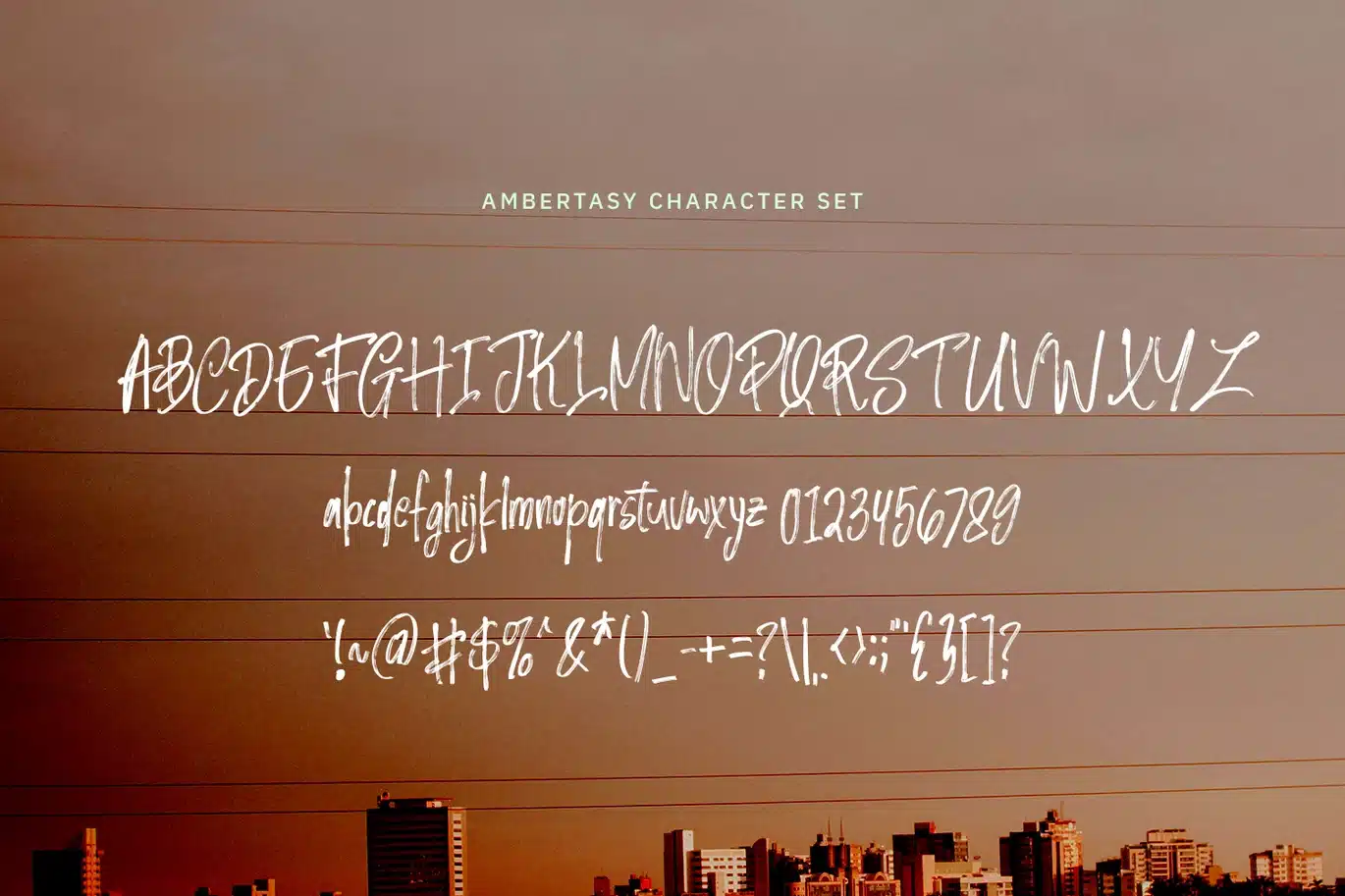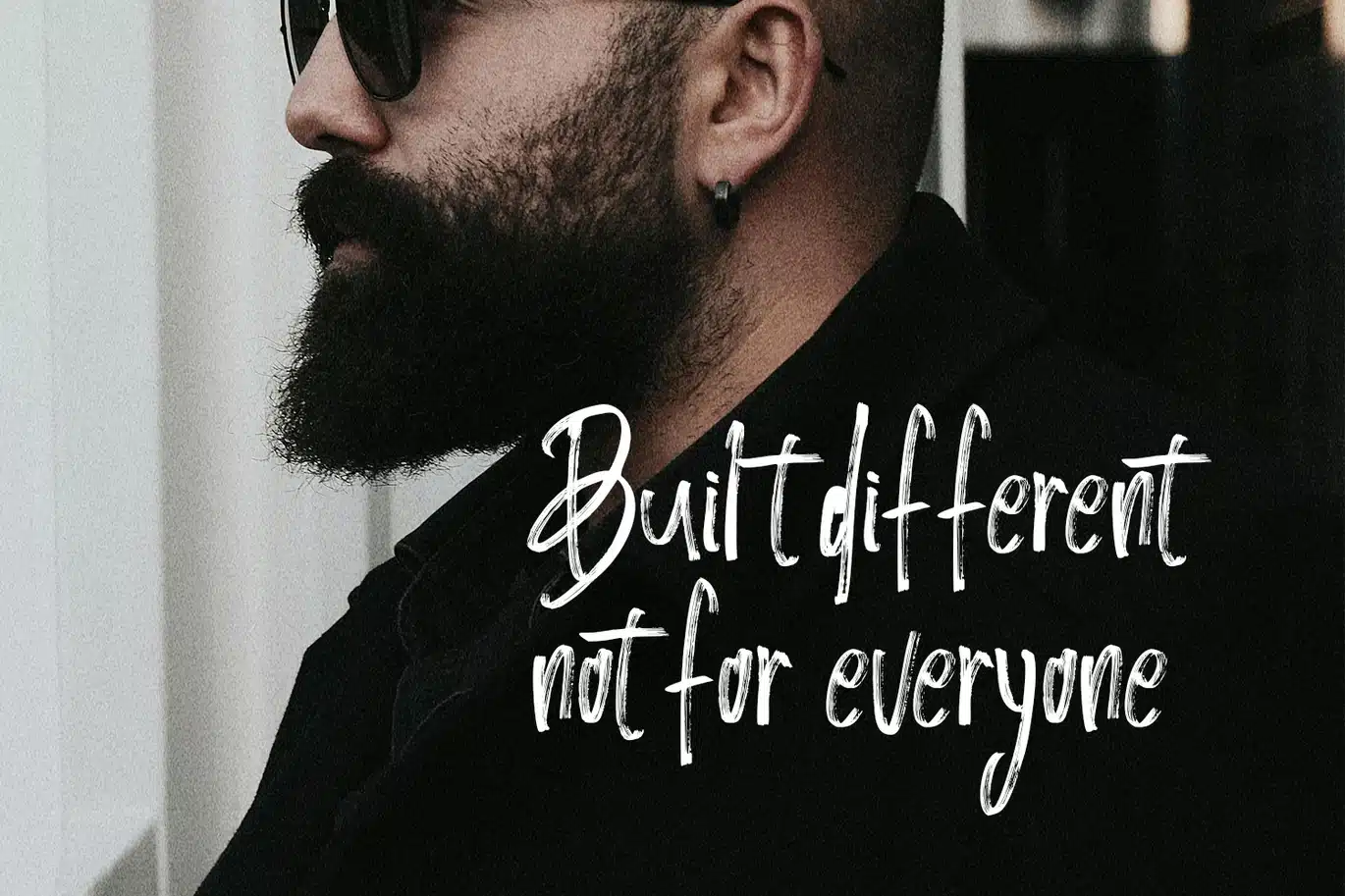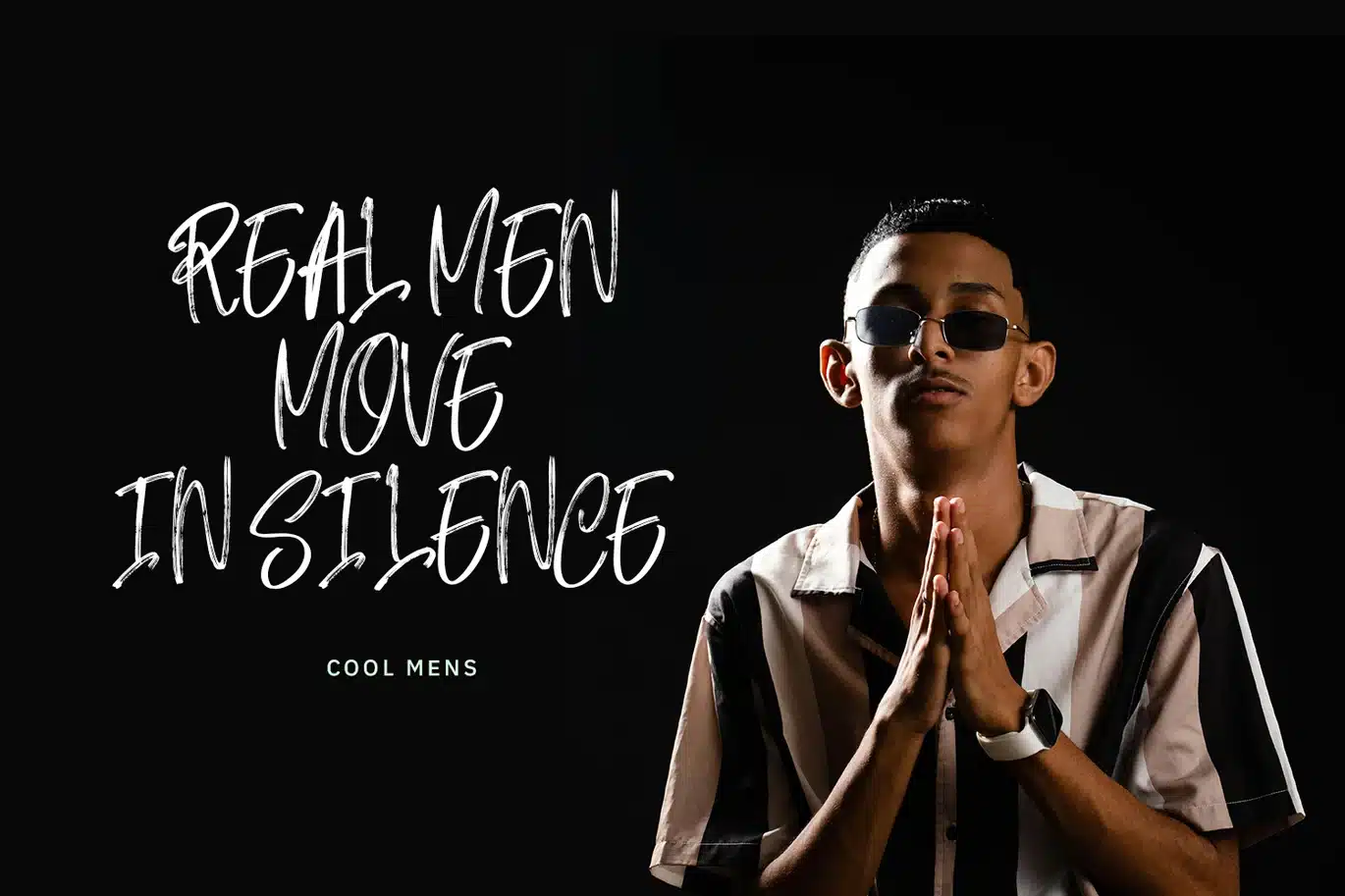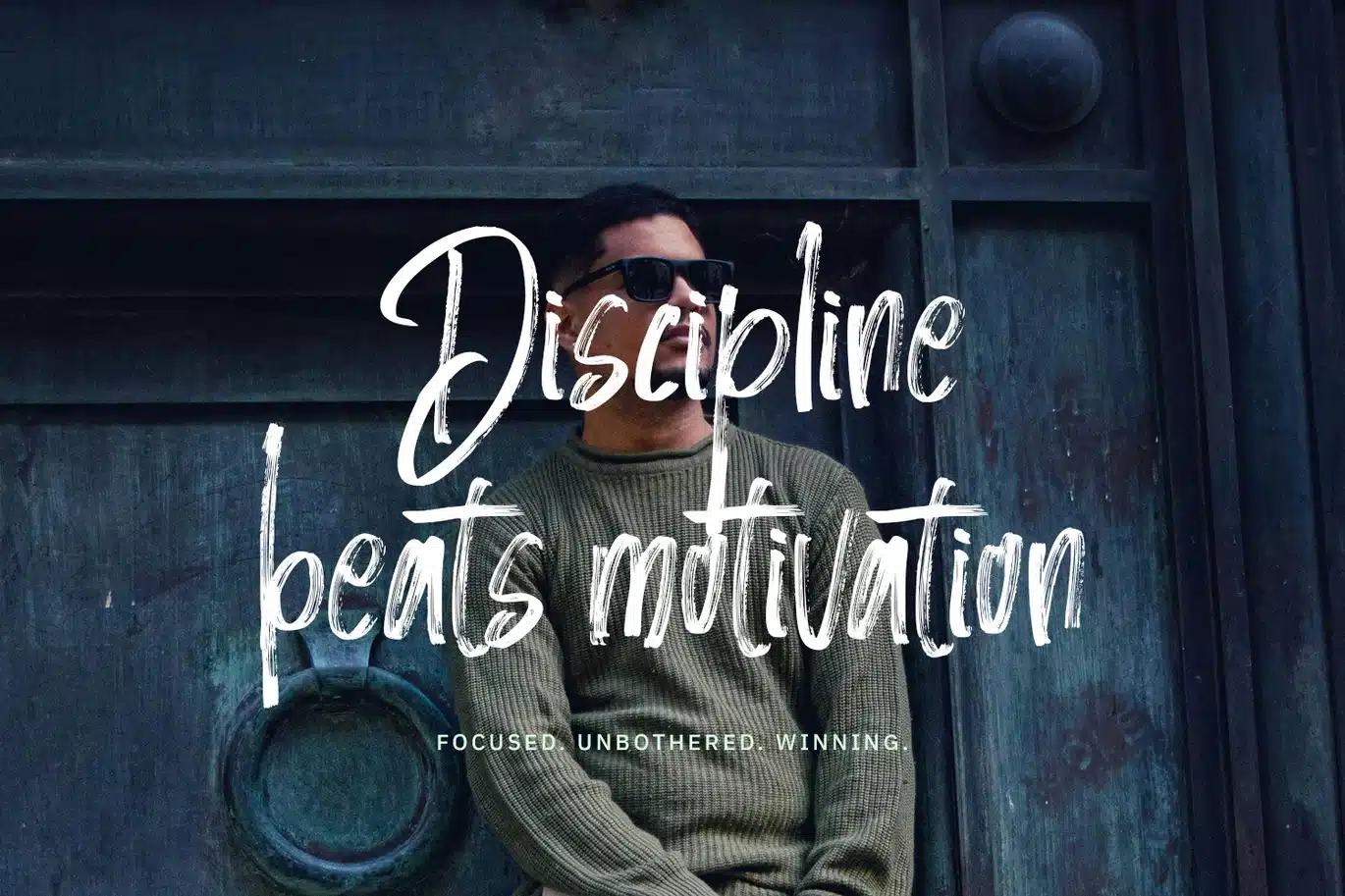
Ambertasy – The Handmade Brush Font
Ambertasy - The Handmade Brush Font
Ambertasy is a handmade brush font crafted with expressive strokes and authentic hand-painted character. Inspired by natural brush movement, this font blends organic texture with a smooth and confident flow. Its slightly rough edges and dynamic forms create a strong artistic personality while keeping excellent readability.
Ambertasy is perfect for branding, logos, headlines, posters, social media graphics, packaging, and creative projects that require a genuine handcrafted brush style with modern energy and versatility.